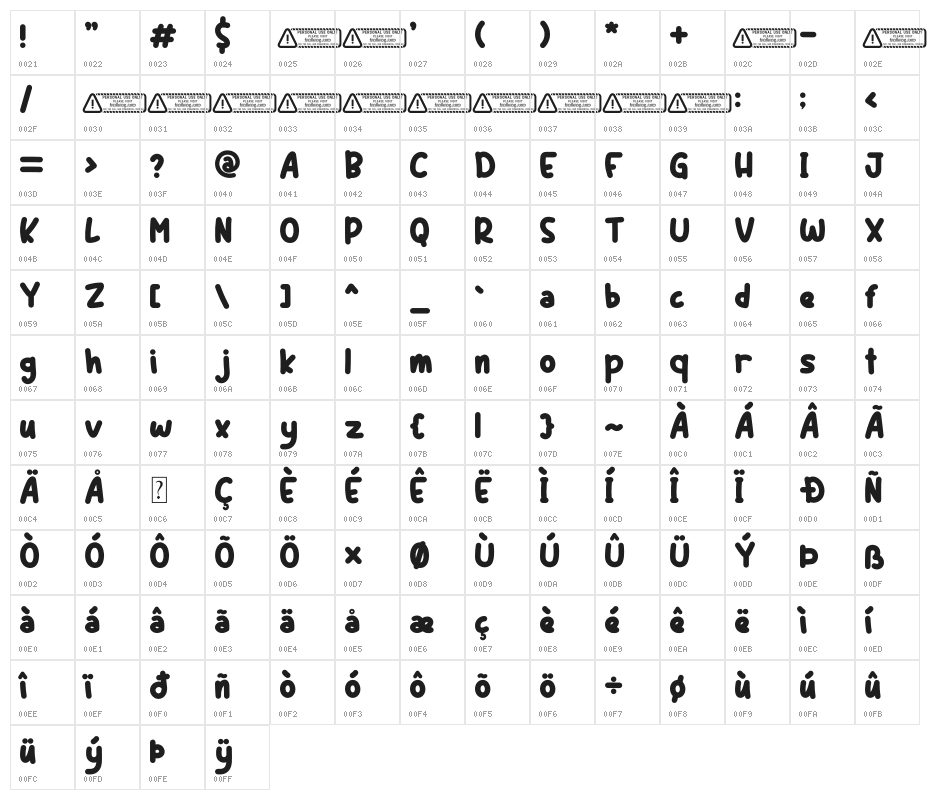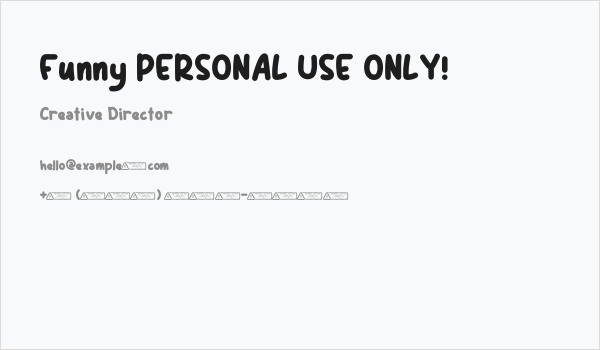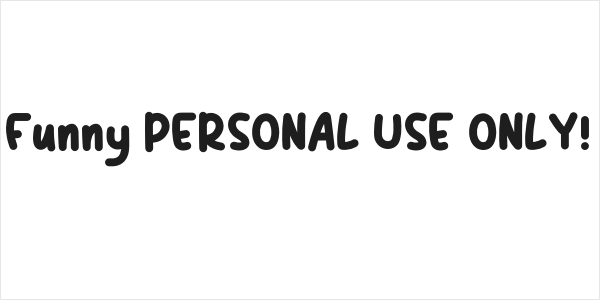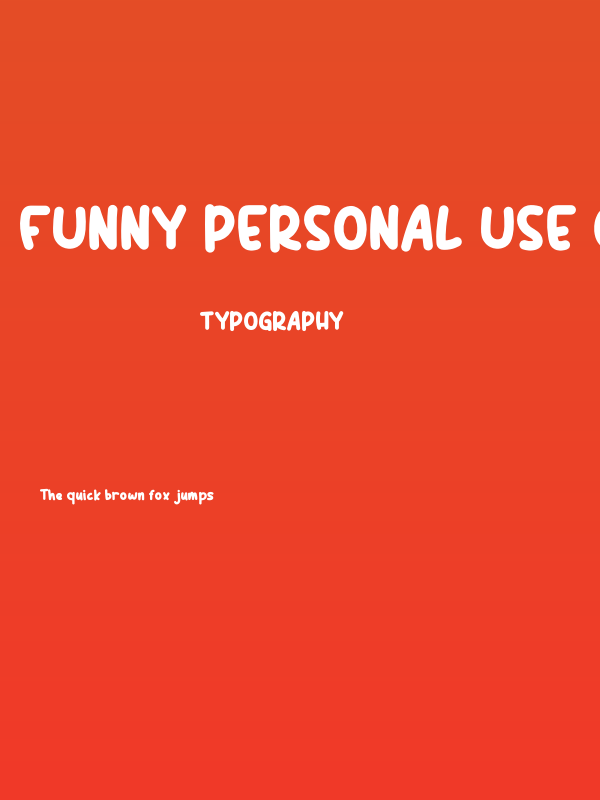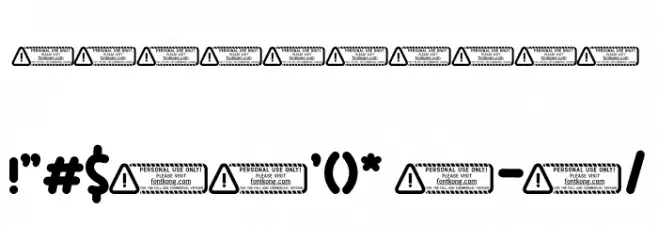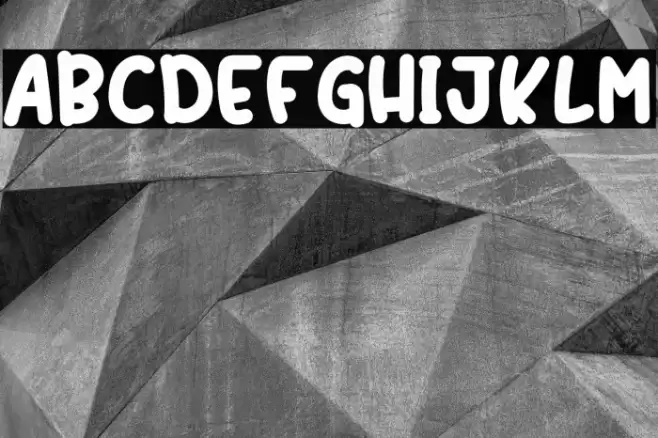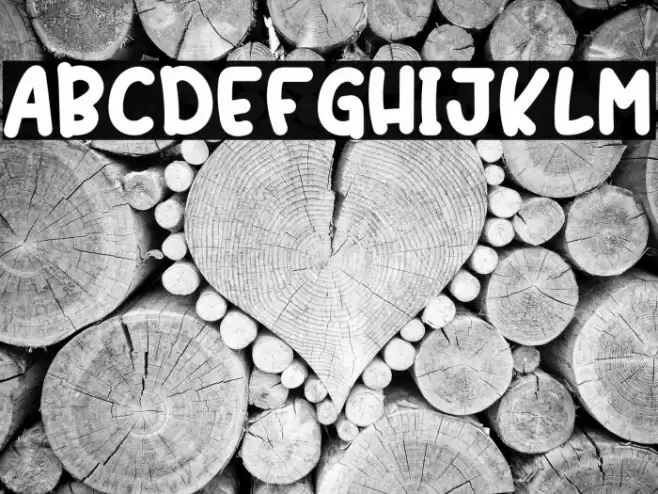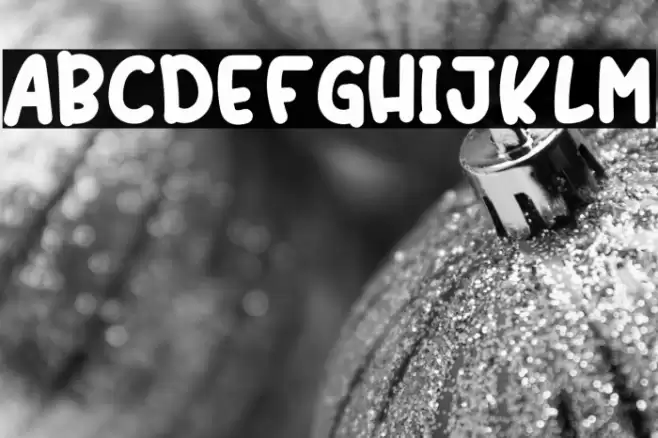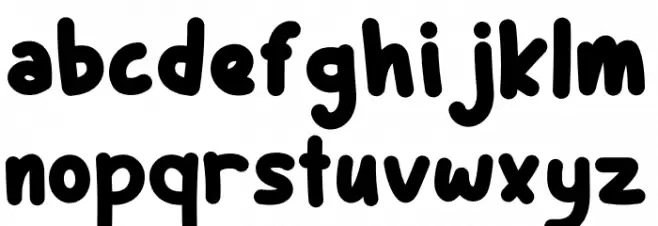
Funny PERSONAL USE ONLY! Font
Funny PERSONAL USE ONLY! Description
This playful and bold font features rounded, thick strokes that give it a friendly and approachable appearance. The characters are slightly irregular, adding a whimsical touch to the overall design. The uppercase and lowercase letters maintain a consistent style, with a slight slant that enhances its casual feel. The numbers and special characters are designed to match the playful nature of the alphabet, making it suitable for informal and fun projects. The font's boldness ensures it stands out, while the rounded edges soften its impact, making it versatile for various creative applications.
| Overall Style | Playful, Casual |
| Proposed Projects | Ideal for children's books, playful branding, party invitations, and casual social media graphics. |